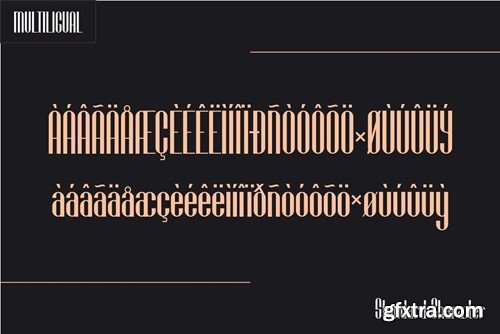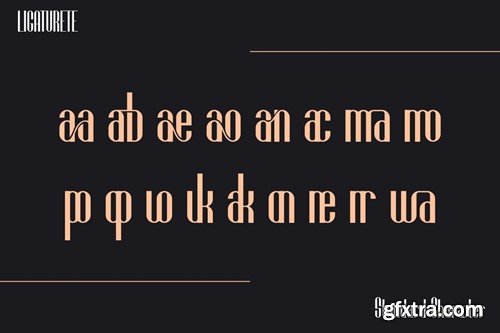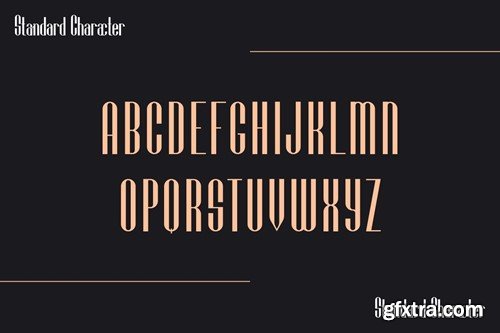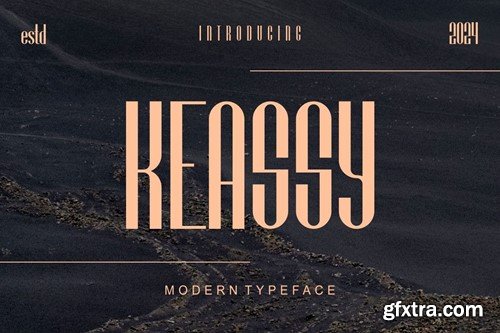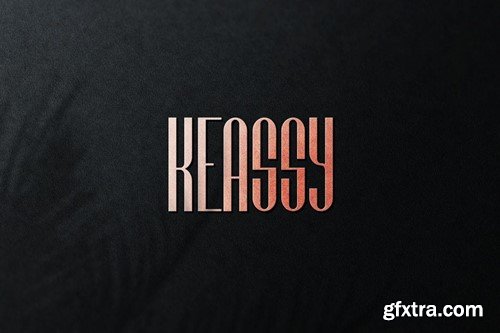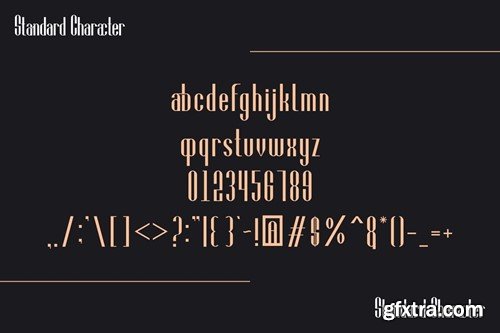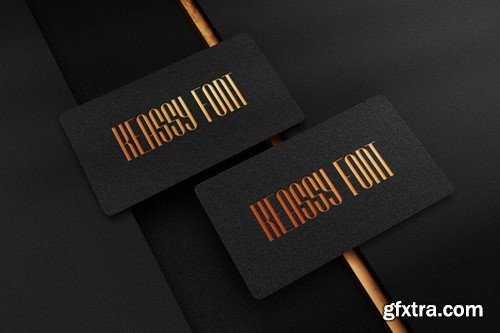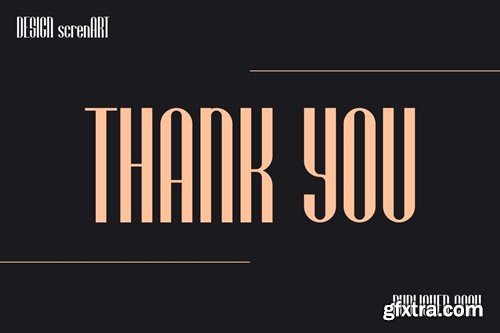
Keassy Font
Proudly present our new product Keassy Font
• Keassy Font is a modern and authentic font. *
• Perfect for both professional and branding needs of a product. *
• This font is suitable for any branding project like quotes, logo, blog header, poster, banding, letter, invitation, stationery, *
• etc... Designed as a versatile and flexible that can be used on a range of projects and mediums. *
• outstanding in a wide range of contexts. *